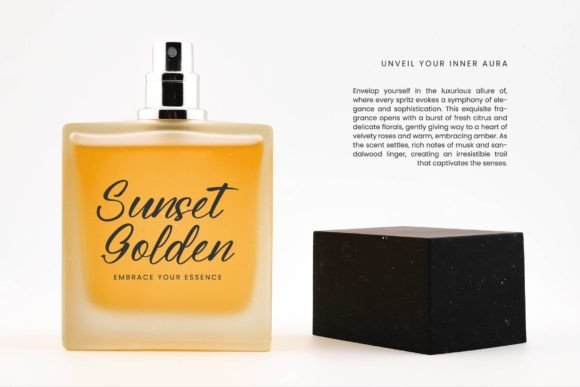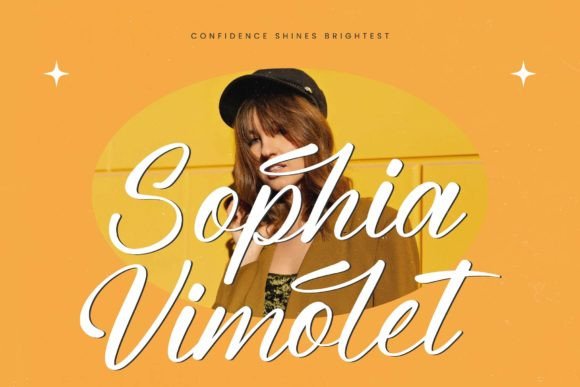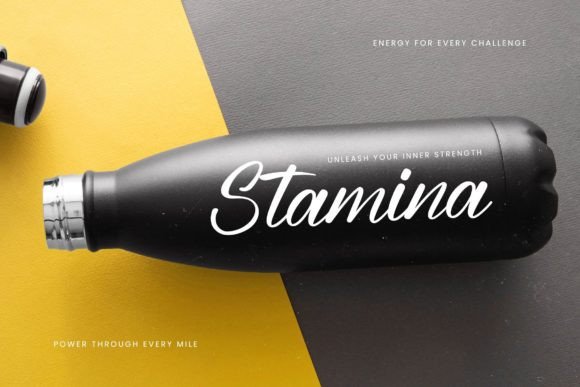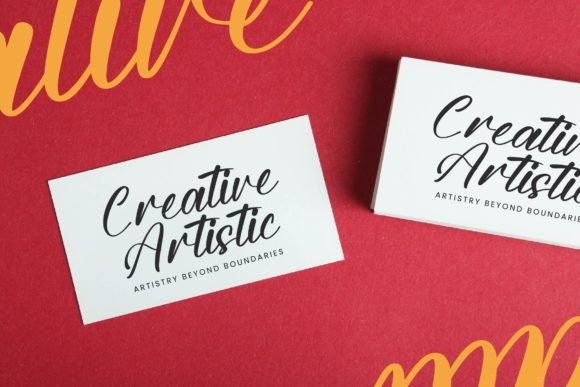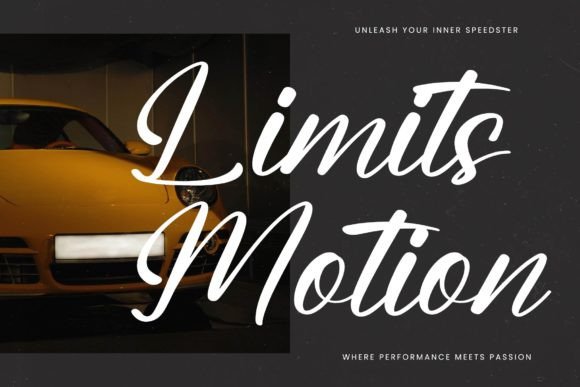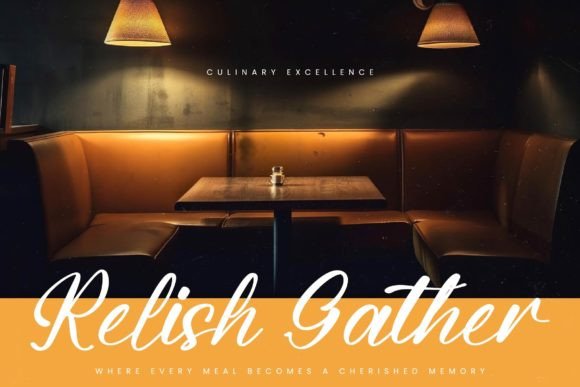
Burger Champ Font: Elevate Your Designs with a Stylish Script Font
In the world of typography, fonts play a crucial role in conveying the tone and personality of a brand or design. For designers and crafters looking to make a bold statement, the Burger Champ Font is an excellent choice. This stylish, contemporary script font is designed to turn heads with its strong, bold strokes and modern aesthetic.
What is Burger Champ Font?
Burger Champ is a carefully crafted script font that exudes confidence and sophistication. Its unique blend of bold and fluid strokes creates a distinctive look that’s perfect for logos, headlines, and any other bold statement you want to make. Whether you’re working on a branding project, a marketing campaign, or a personal craft, Burger Champ Font is sure to elevate your design.
Key Features of Burger Champ Font
- Strong, Bold Strokes: Burger Champ Font features robust strokes that give your text a sturdy, confident appearance.
- Modern Design: Its contemporary aesthetic ensures your design looks fresh and up-to-date.
- Script Style: The script font style adds a touch of elegance and sophistication to your text.
- Versatile: Suitable for a wide range of applications, from logos and headlines to posters and social media graphics.
Why Choose Burger Champ Font?
With so many fonts available, why should you choose Burger Champ Font for your next project? Here are a few compelling reasons:
- Attention-Grabbing: The bold, modern design of Burger Champ Font is guaranteed to grab attention and make your text stand out.
- Easy to Read: Despite its bold strokes, the font remains highly legible, ensuring your message is communicated clearly.
- Customizable: Burger Champ Font can be easily customized to fit your brand’s color scheme and style, making it versatile for various applications.
- Time-Saving: With Burger Champ Font, you can achieve a professional, high-end look without spending hours designing from scratch.
Using Burger Champ Font in Your Designs
Incorporating Burger Champ Font into your designs is straightforward. Here are some tips to get you started:
- Pair with Complementary Fonts: For maximum impact, pair Burger Champ Font with simpler fonts to create contrast and visual interest.
- Experiment with Colors: Don’t be afraid to try different colors and gradients to match your brand’s aesthetic or the mood of your design.
- Use for Headlines and Titles: Burger Champ Font is perfect for headlines, titles, and short phrases where you want to make a bold statement.
Who Can Benefit from Burger Champ Font?
Burger Champ Font is an excellent addition to any designer’s toolkit, particularly those working in:
- Branding and Marketing: Create memorable logos and marketing materials that stand out.
- Graphic Design: Add a bold, modern touch to your graphic designs, from posters to social media graphics.
- Crafting and DIY Projects: Elevate your handmade projects, such as craft tutorials, packaging, and labels, with a professional look.
Burger Champ Font is a stylish, contemporary script font designed to make a bold statement. Its strong, bold strokes and modern design make it perfect for designers and crafters looking to elevate their projects. Whether you’re working on a branding project, a marketing campaign, or a personal craft, Burger Champ Font is an excellent choice. With its versatility, ease of use, and attention-grabbing design, Burger Champ Font is sure to become a staple in your design toolkit.